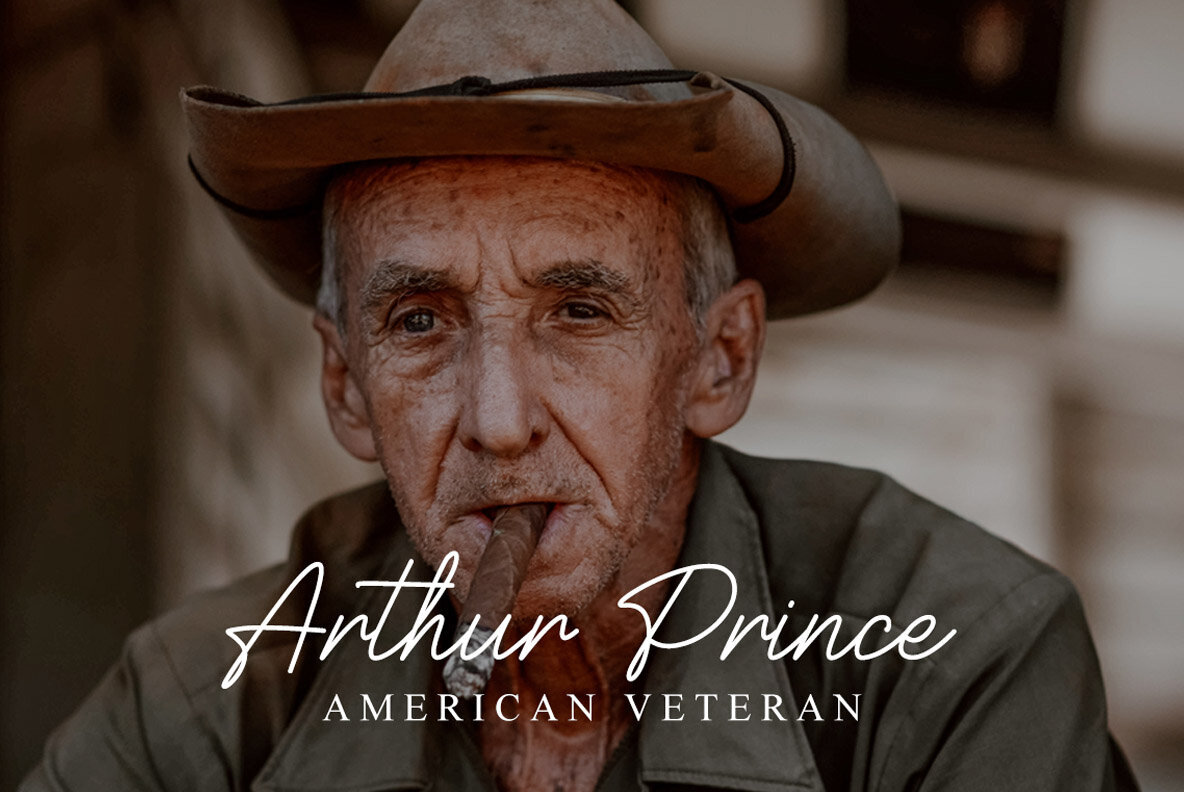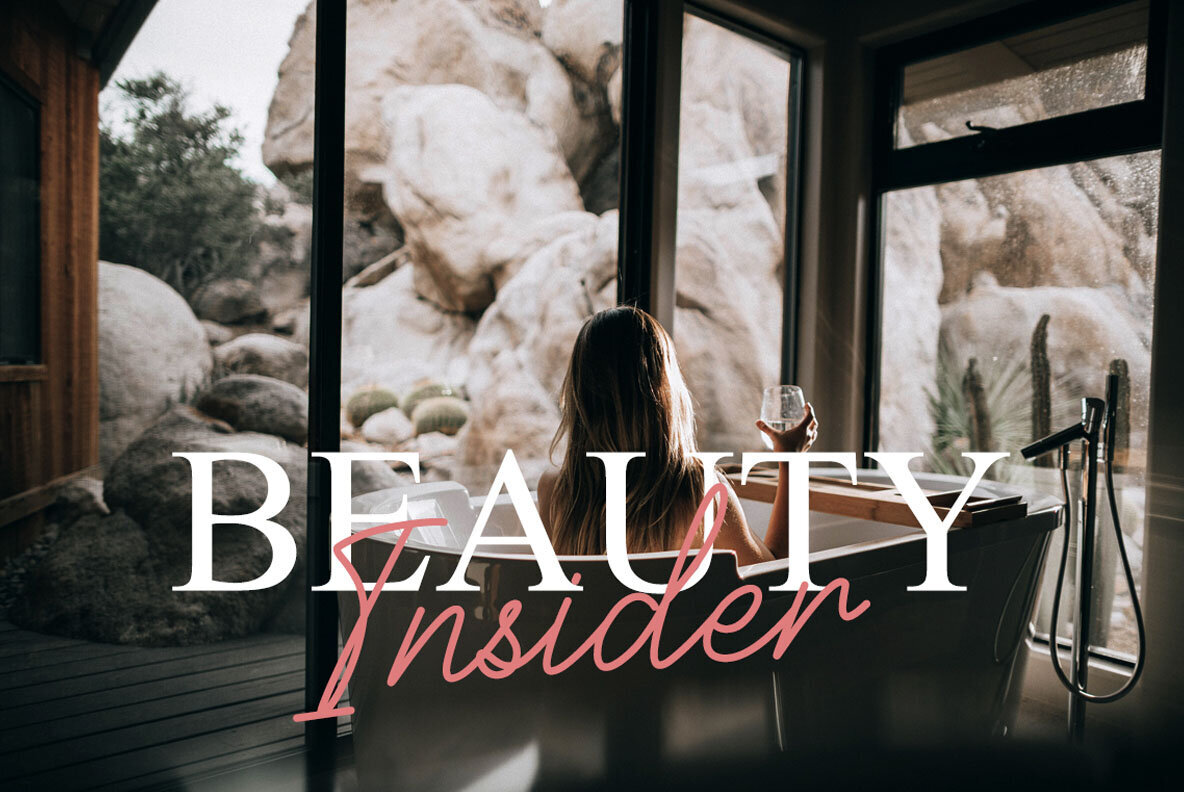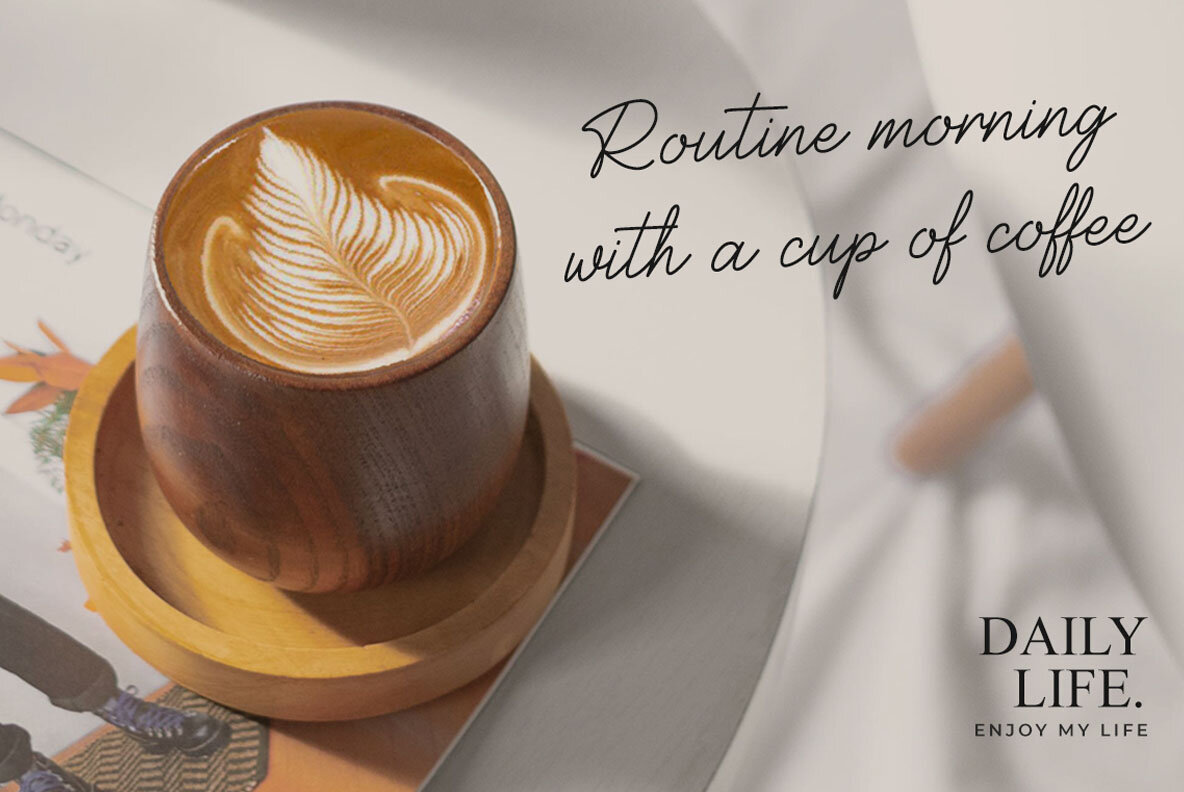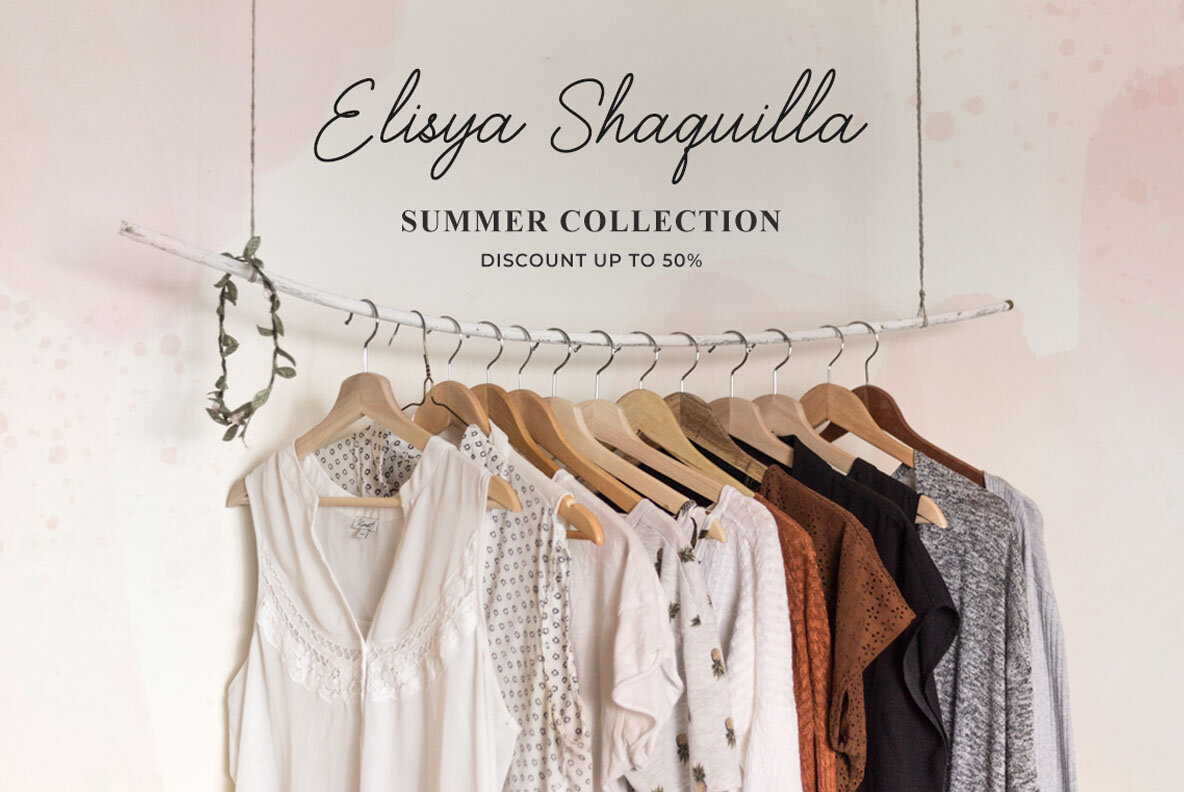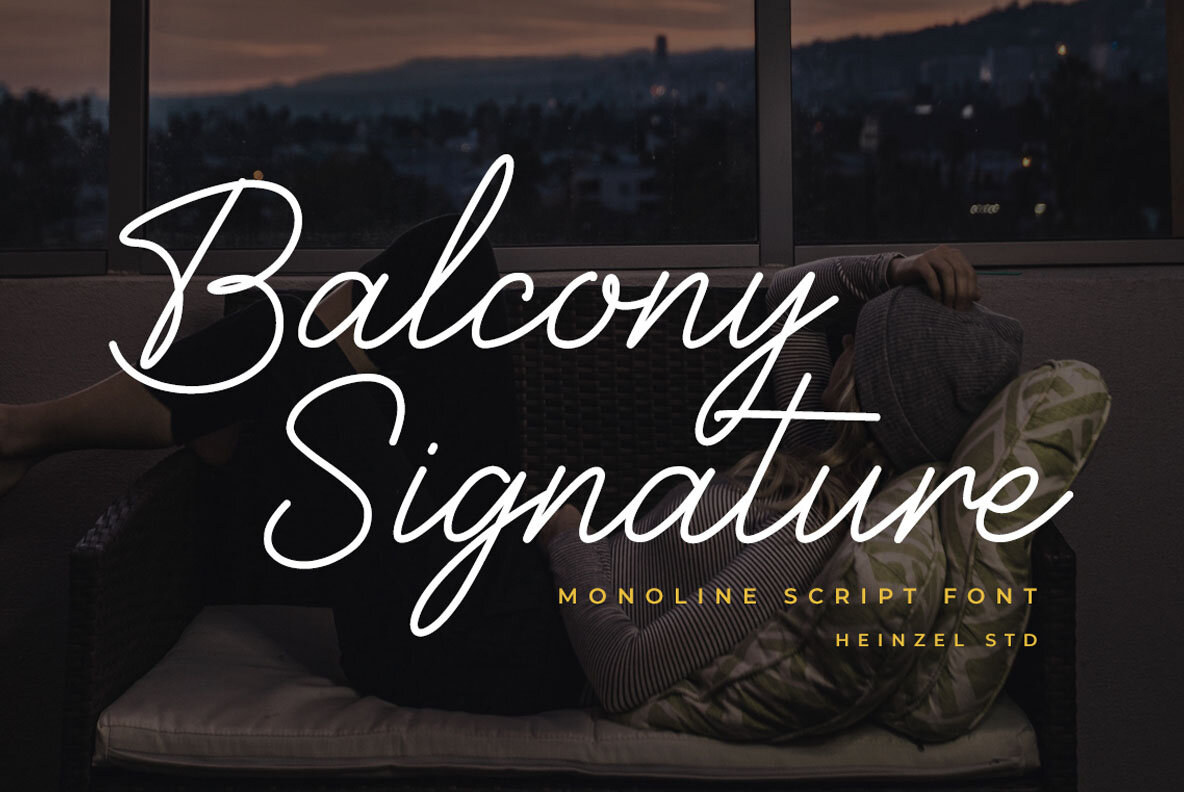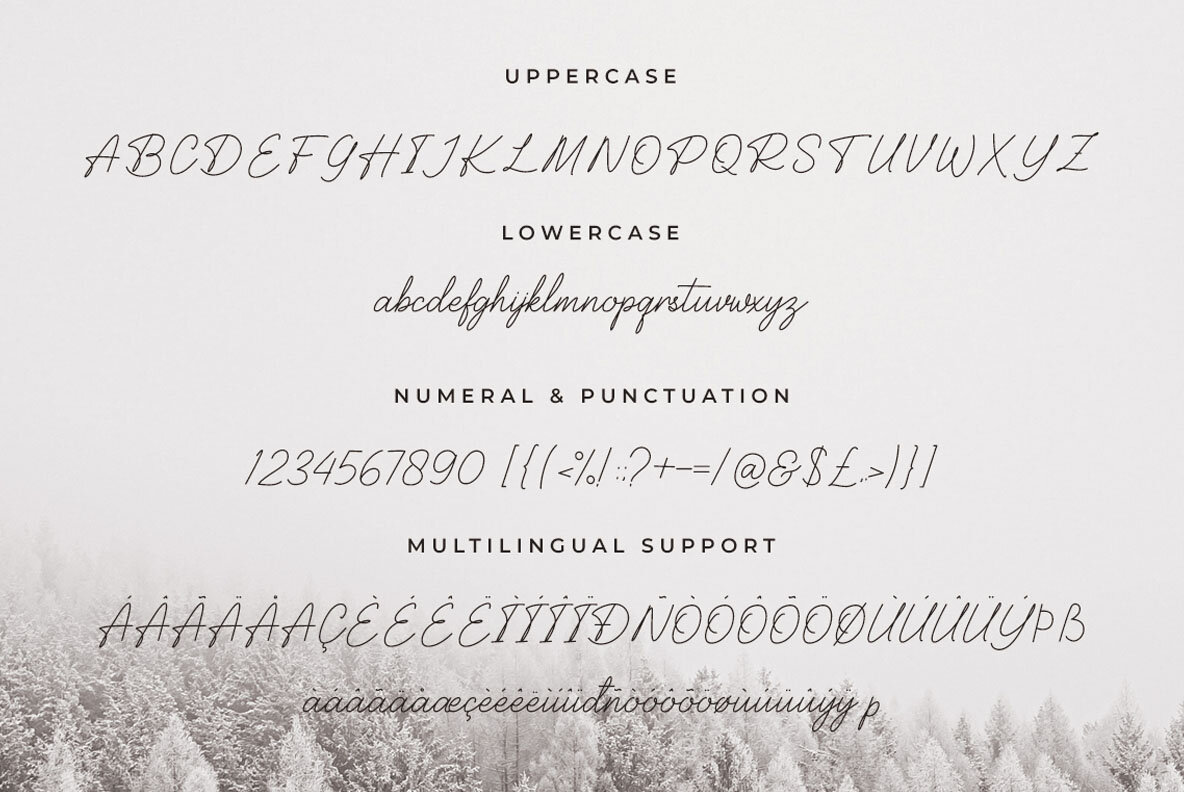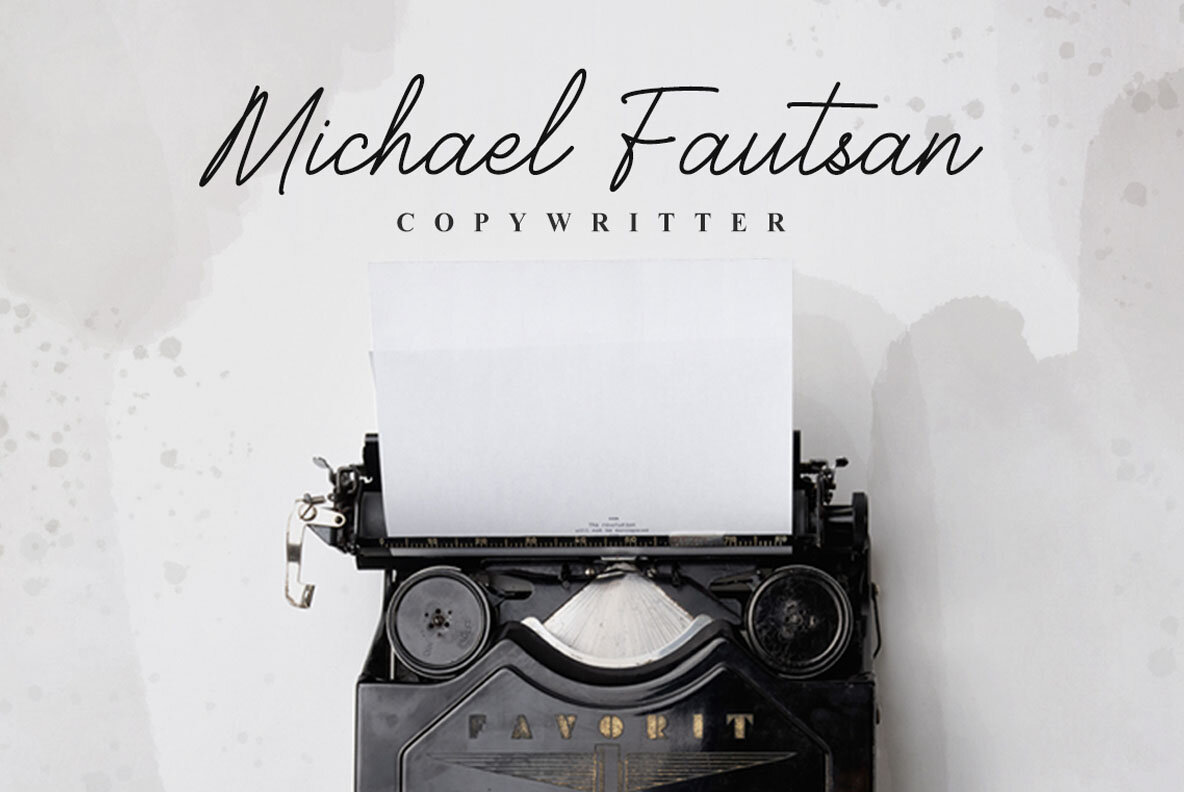
Balcony Font
Balcony
Balcony is a flowing handwritten font, described by an elegant touch, perfect for your favorite projects. Fall in love with its incredibly distinct and timeless style and use it to create spectacular designs!